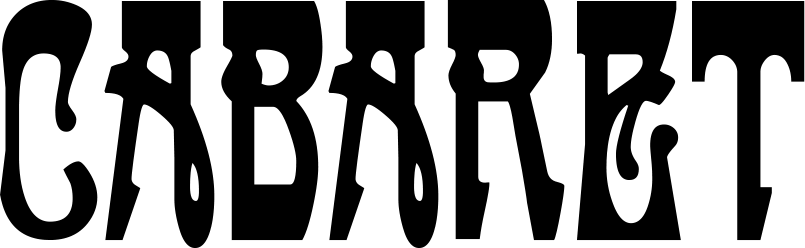
Cabaret Font
Designed byDieter Steffmann
Go with a retro font and level up your text design. Cabaret is a set of 3 different versions and works perfectly for posters, movies, video games, and whatnot. Bear in mind that this case doesn’t support lowercase letters. Don’t hesitate and pick your favorite style. To have more of this category, don’t miss our ever-growing library.